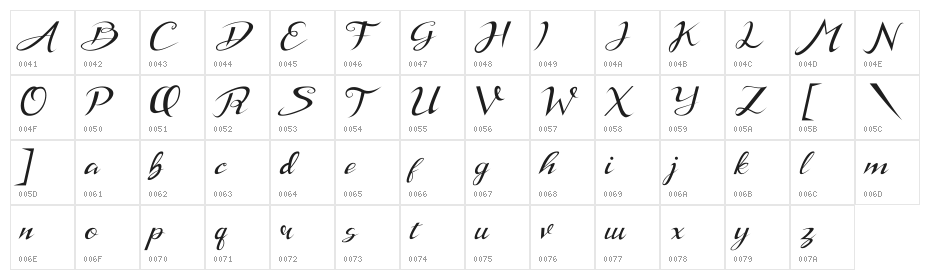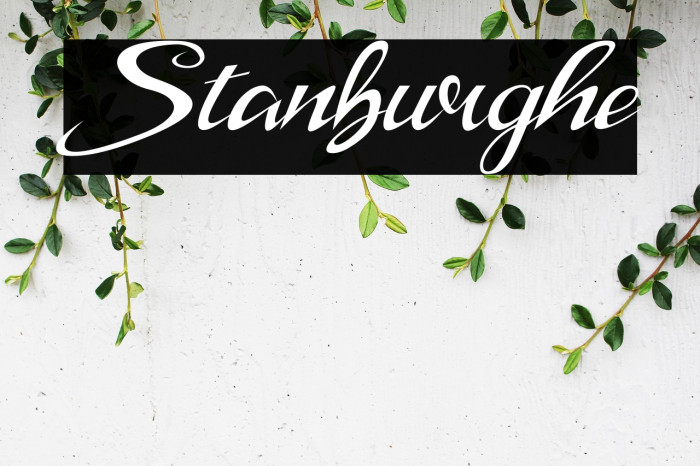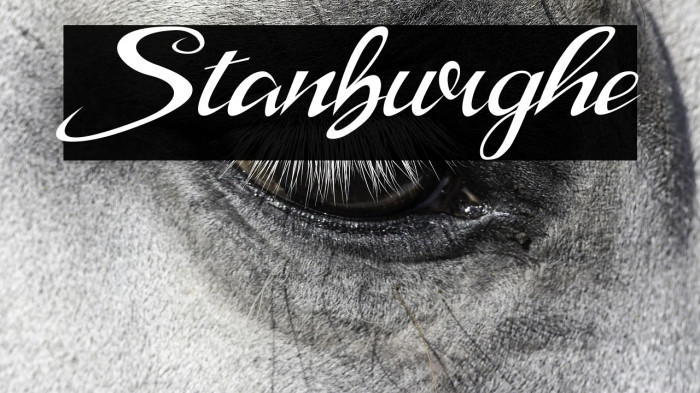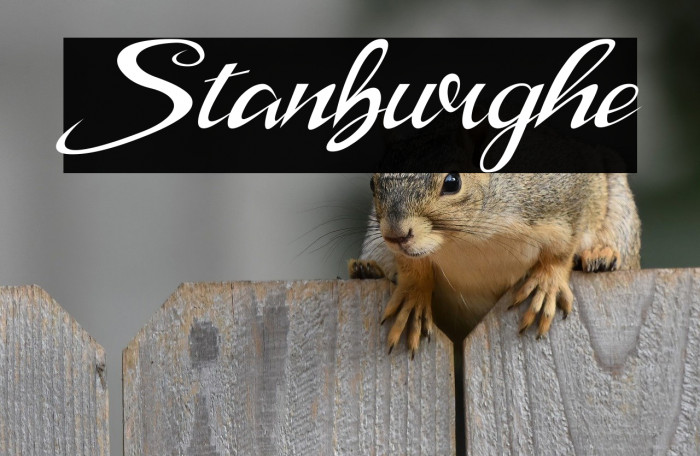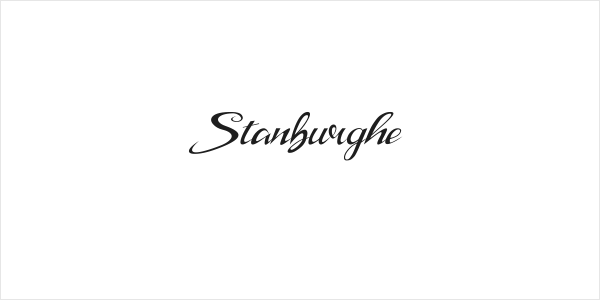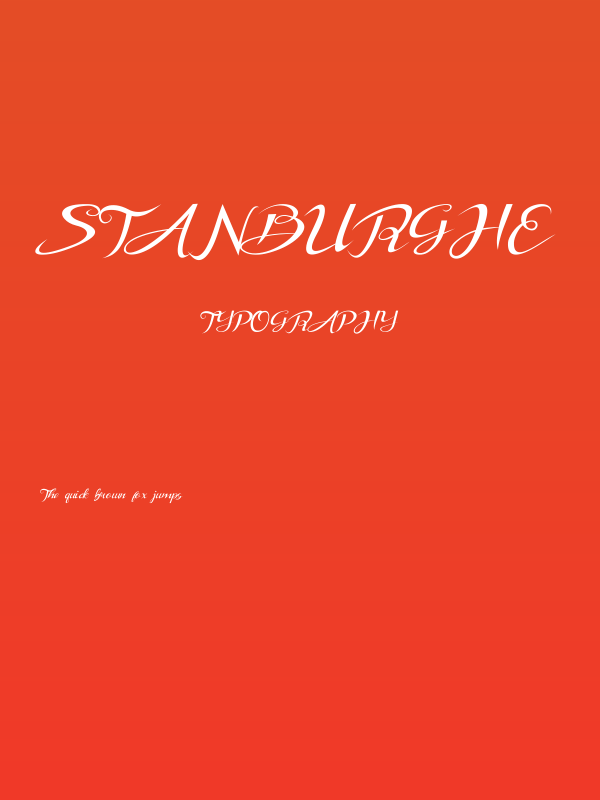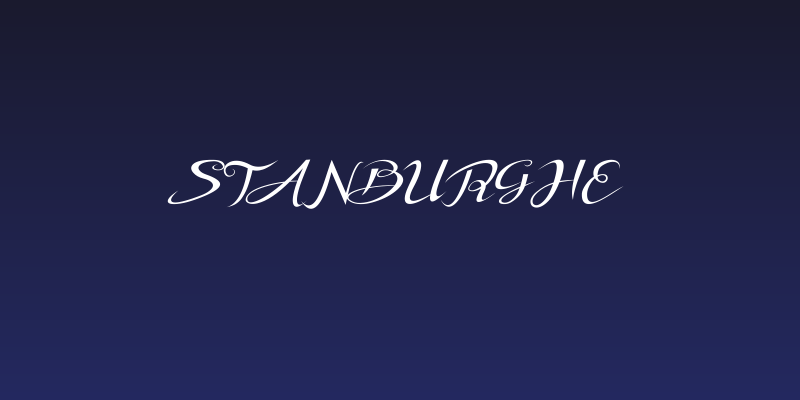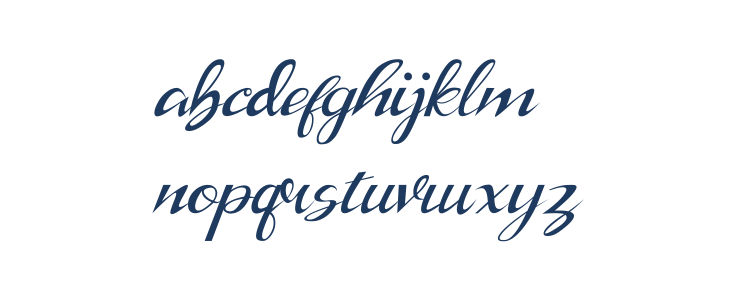
Stanburghe Font
Stanburghe Description
This elegant script font features flowing, interconnected letters with a sophisticated flair. The uppercase letters exhibit graceful curves and flourishes, while the lowercase letters maintain a smooth, cursive style. The font's design is reminiscent of traditional calligraphy, with a modern twist that adds a touch of refinement. The characters are well-balanced, with a consistent stroke width that enhances readability. This font is perfect for creating a sense of elegance and sophistication in any design project.
| Overall Style | Elegant, Calligraphic |
| Proposed Projects | Ideal for wedding invitations, elegant branding, luxury packaging, and formal event programs. |